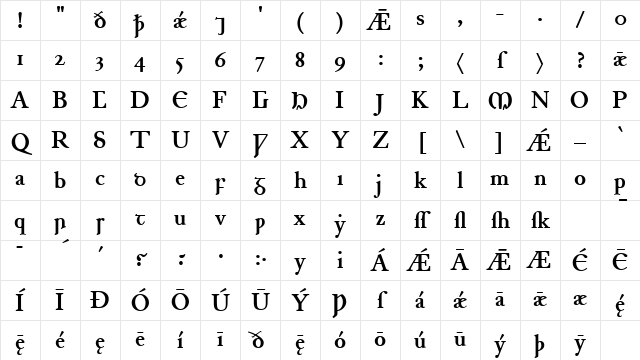
Junius Bold
Design Context for Junius
Junius is a composed and adaptable typeface that performs quietly and consistently across a wide range of design contexts. Its bold stroke weight gives it real presence on the page.